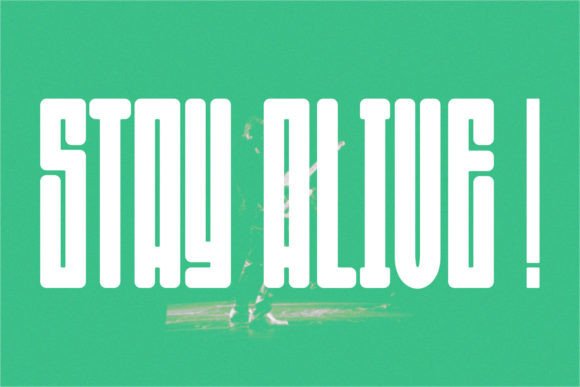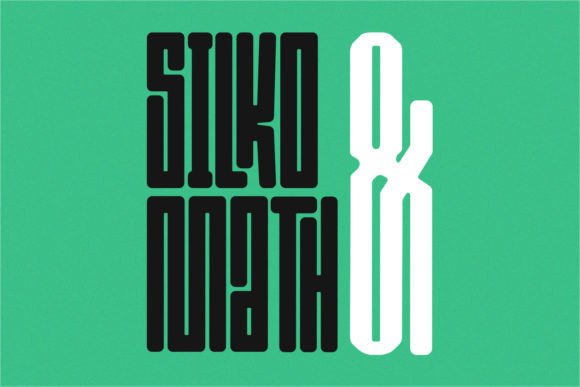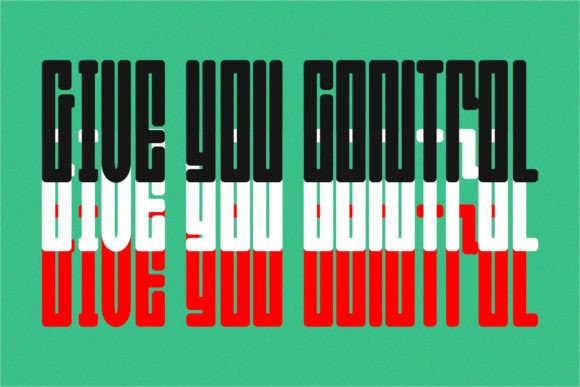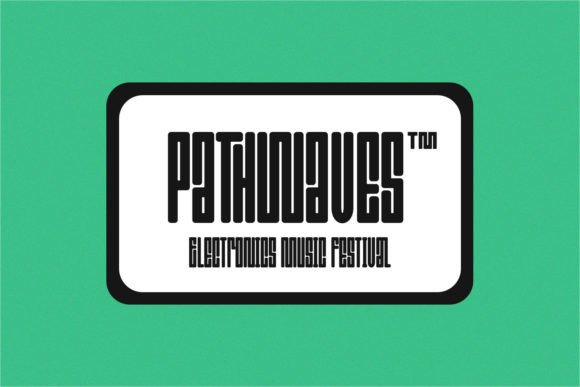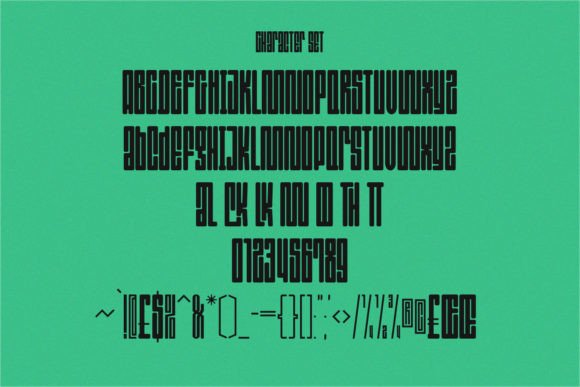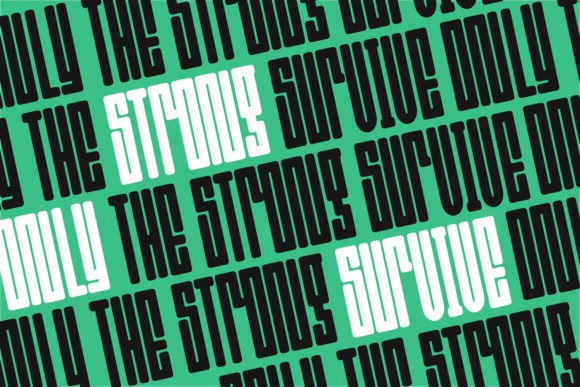
Introduction to Konnekta Font
Konnekta is a condensed display font.
Contemporary and fresh, this font will be a hit for any design you wish to add it to .